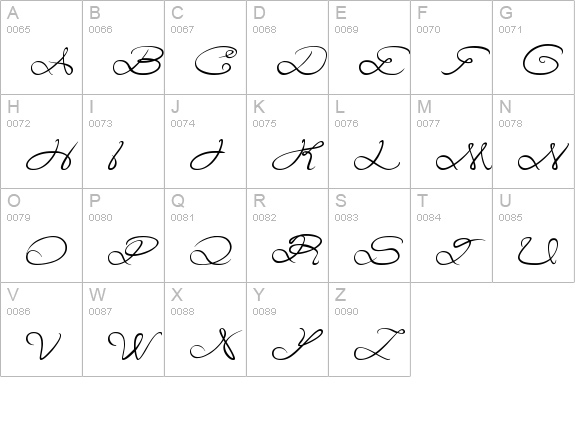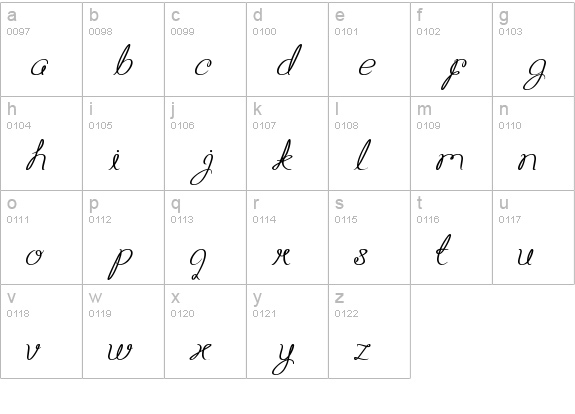
Aku Cinta Kamu Font Details
Introducing Aku Cinta Kamu, a stunningly beautiful font that will captivate your heart with its elegant and graceful curves. This font exudes a sense of romance and tenderness, making it perfect for any project that requires a touch of love. What sets Aku Cinta Kamu apart from other fonts is not only its exquisite design, but also the fact that it is available for free! Yes, that's right - this gorgeous font can be downloaded at no cost from FontsMarket.com. We believe that everyone should have access to high-quality fonts without breaking the bank, and Aku Cinta Kamu is a testament to that belief. Whether you're designing wedding invitations, love letters, or heartfelt quotes, Aku Cinta Kamu will add a touch of sophistication and charm to your work. Its delicate strokes and flowing lines create a sense of harmony and beauty, making each character a work of art. With Aku Cinta Kamu, your words will come alive on the page, evoking emotions and creating a lasting impression. The timeless elegance of this font will make your designs stand out from the crowd and leave a lasting impact on your audience. So why wait? Start using Aku Cinta Kamu today and experience the power of love and beauty in your design projects. Remember, it's freely available to download at FontsMarket.com, so you can start creating stunning works of art without spending a dime. Give your words the love they deserve with Aku Cinta Kamu font.